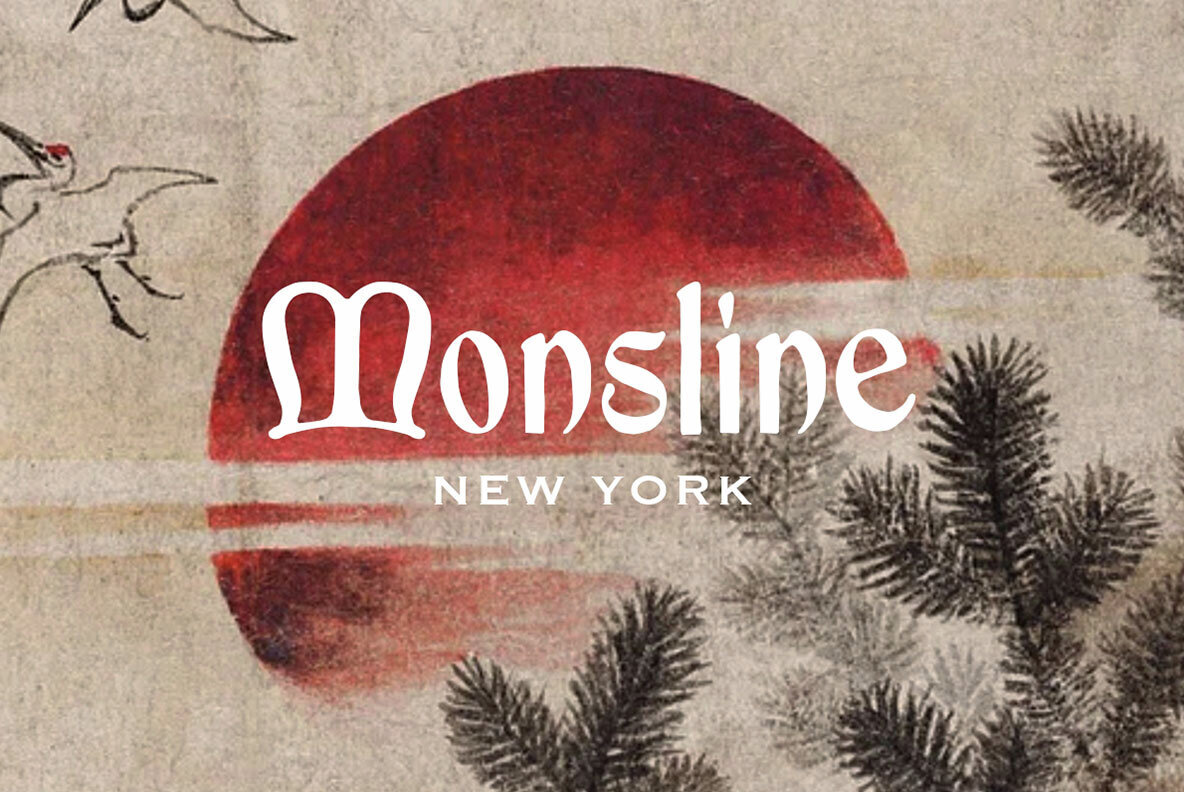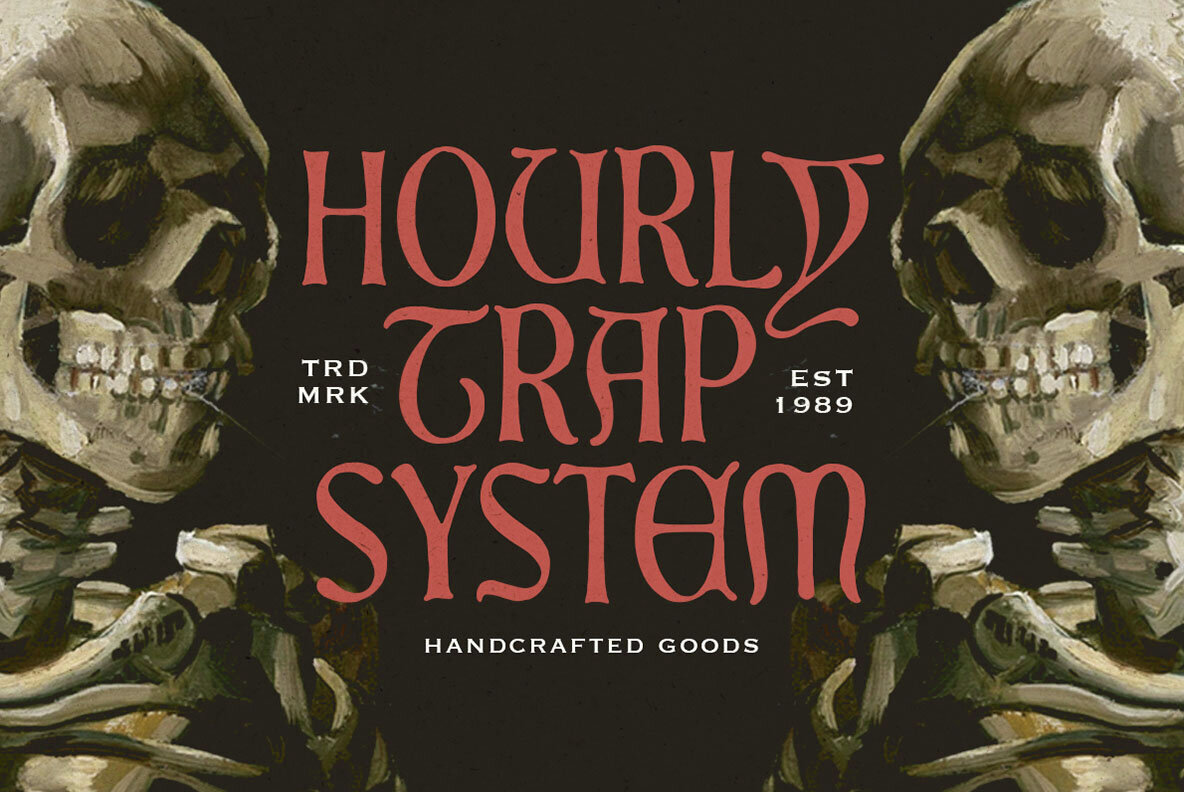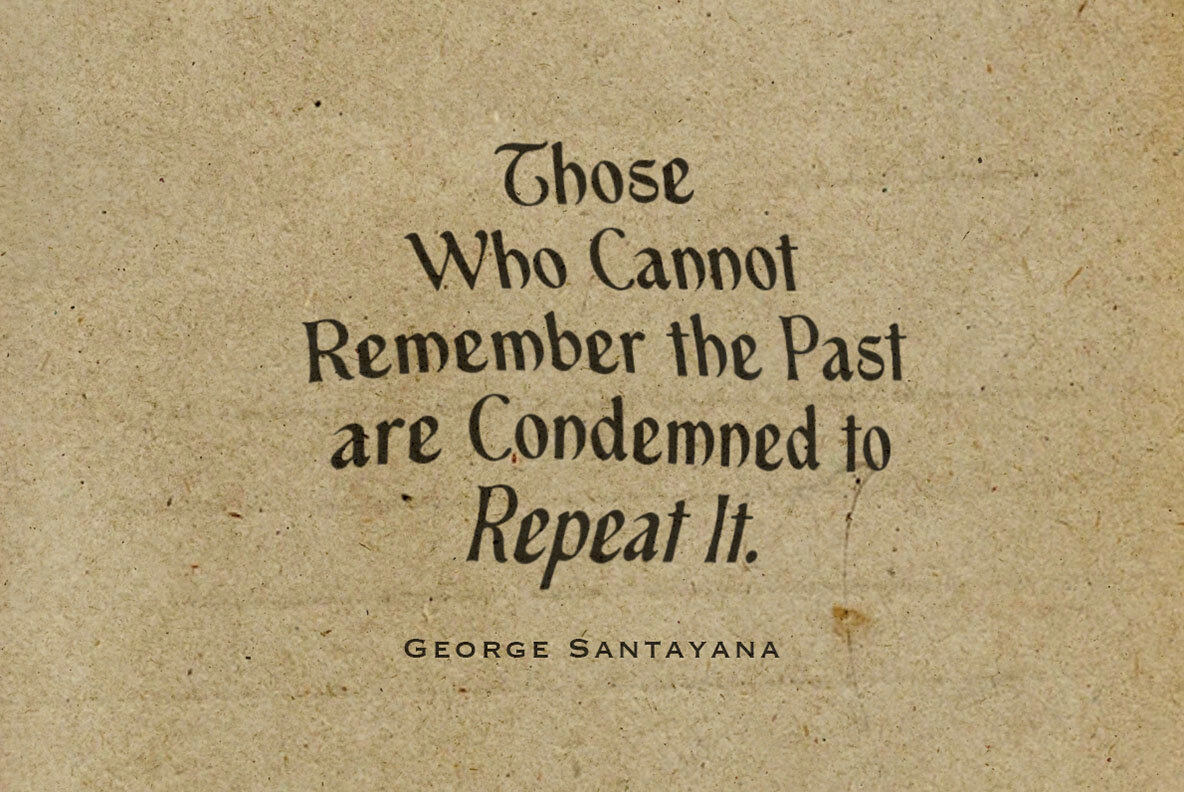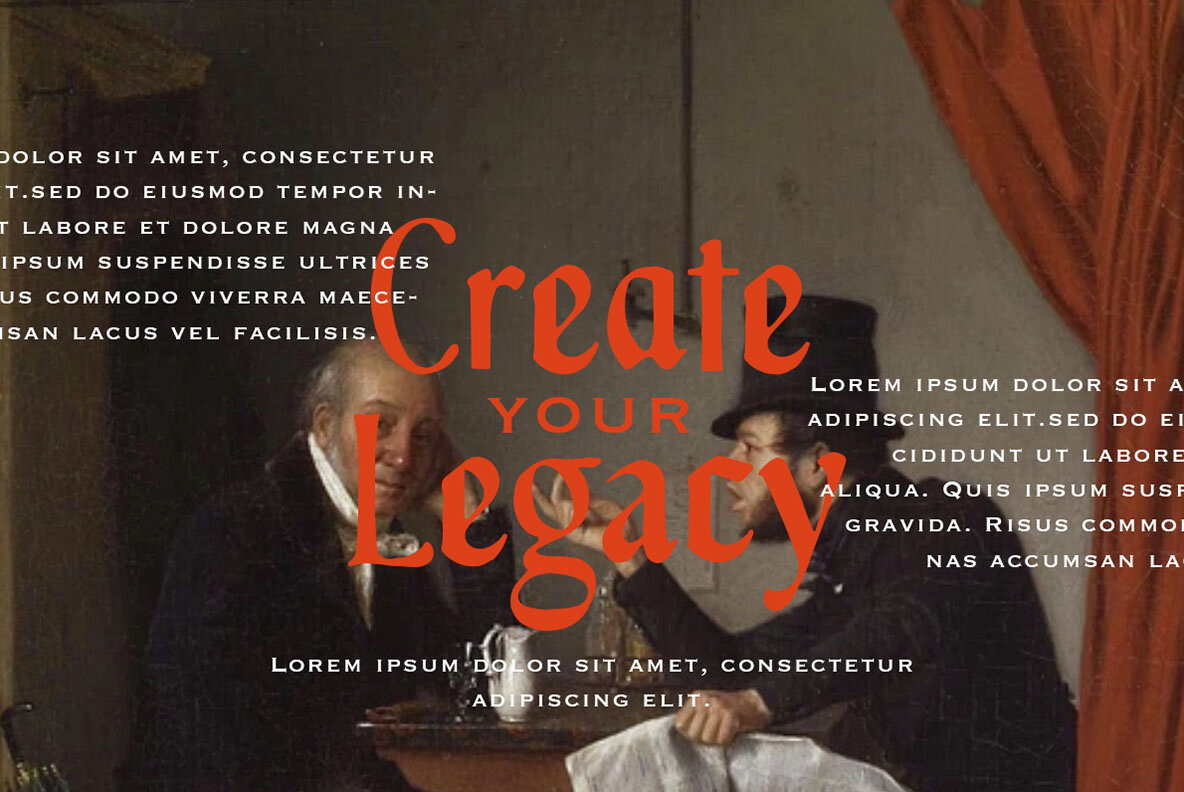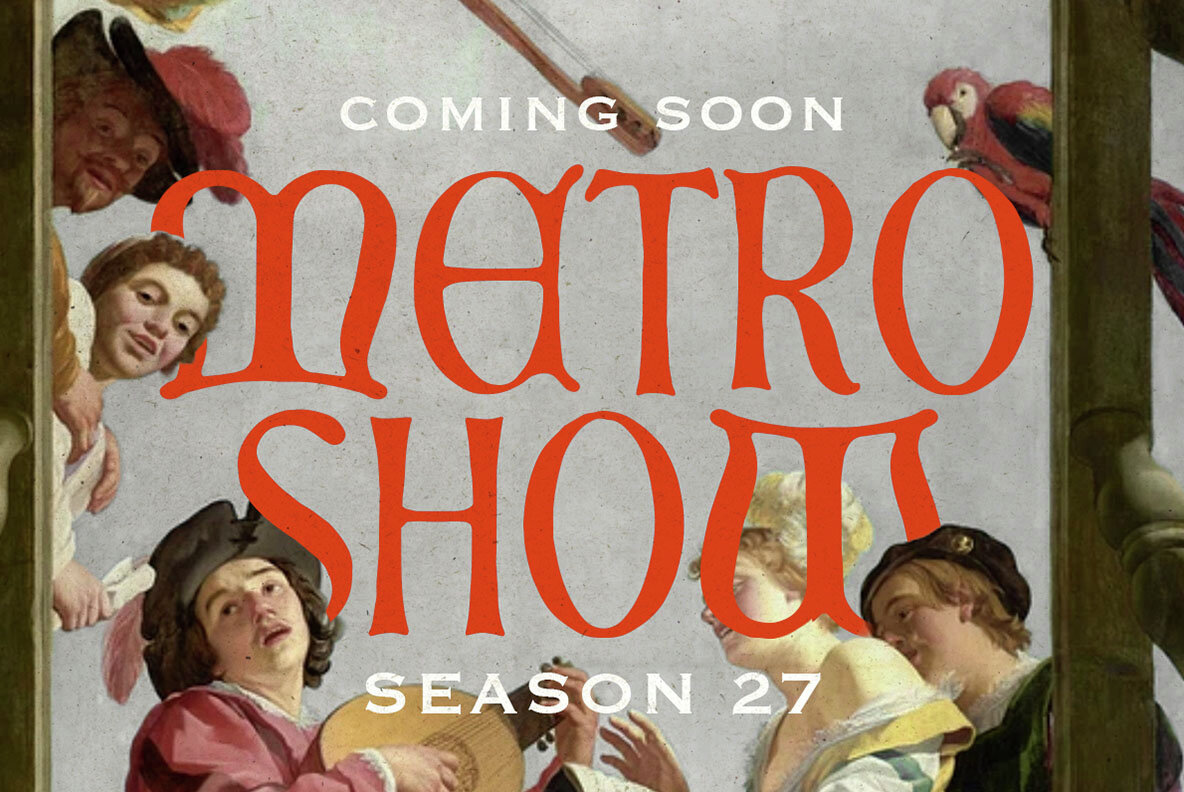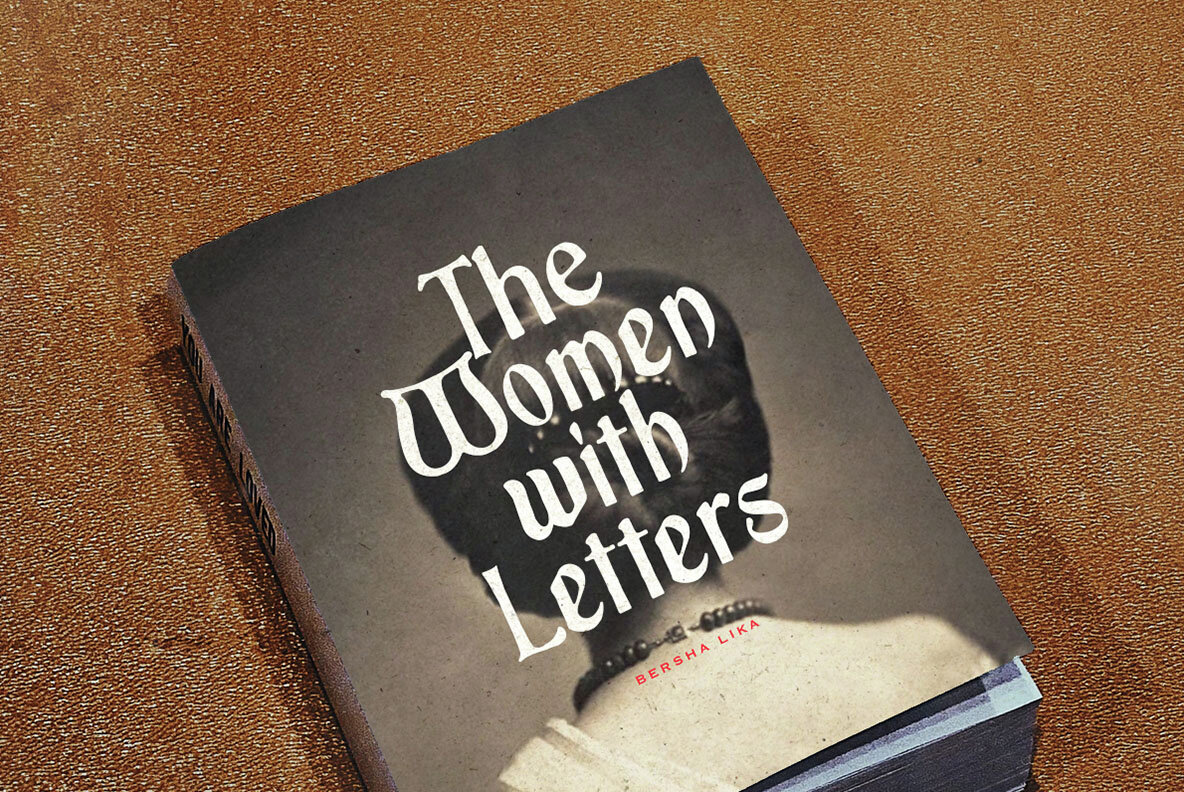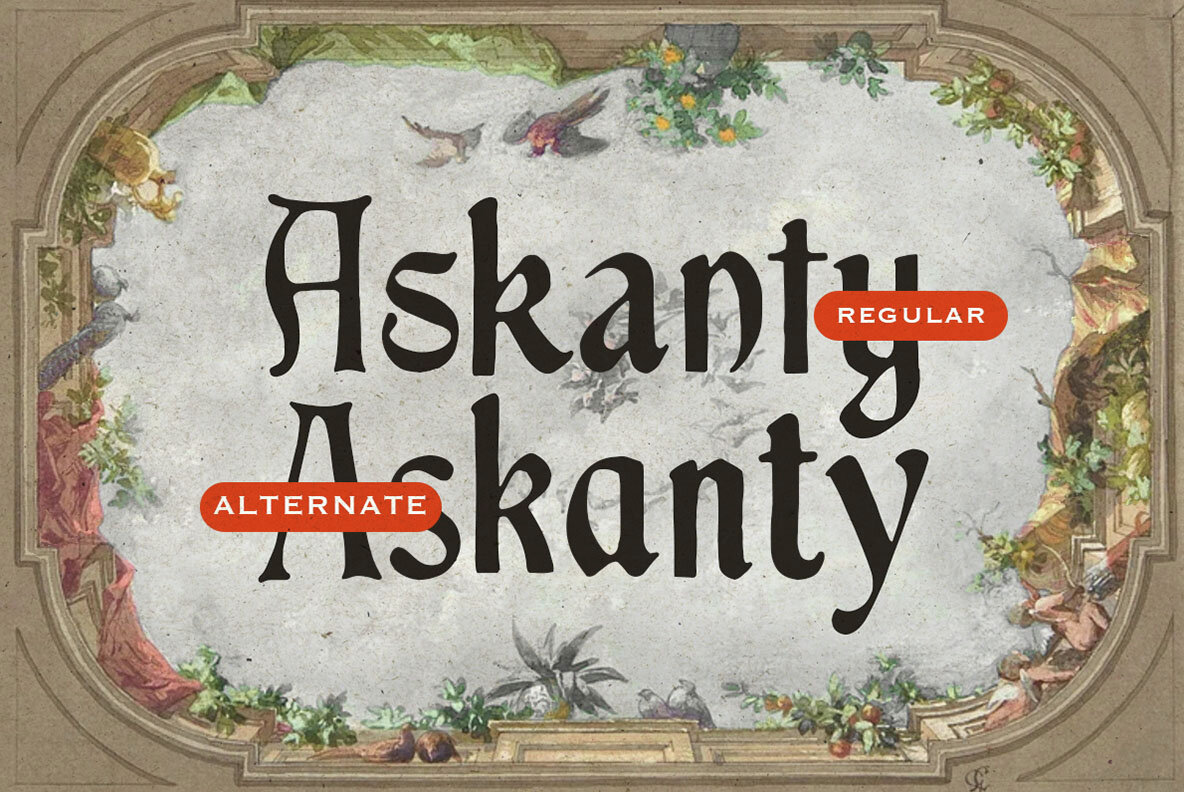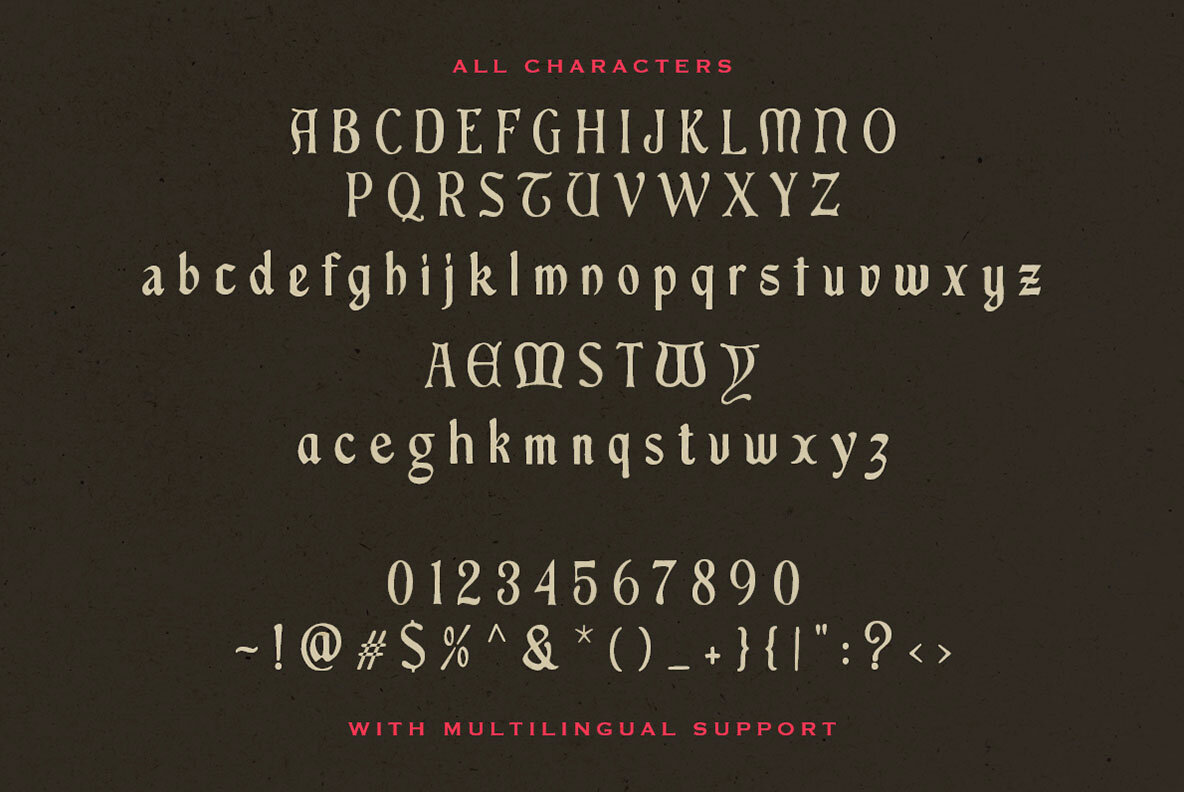
The Armagist Font
Armagist Regular
Immerse your designs in medieval elegance with The Armagist, a handcrafted blackletter font that brings the spirit of ancient manuscripts to life. Its bold, textured strokes and subtle imperfections give a sense of authenticity, perfect for creating logos, posters, book covers, or branding with a historical or fantasy theme. This font pairs beautifully with vintage aesthetics, making it a versatile choice for designs that need a touch of old-world charm. Features : We highly recommend using a program that supports OpenType features and Glyphs panels like many of Adobe apps and Corel Draw, so you can see and access all Glyph variations.